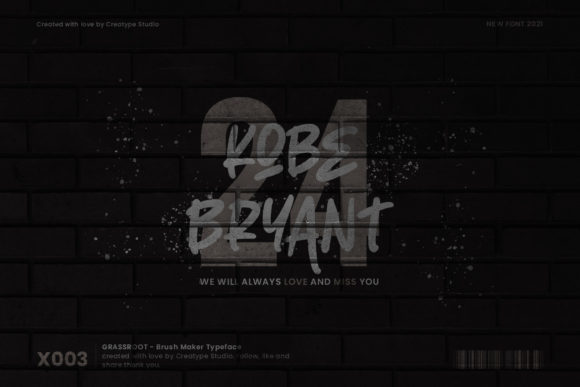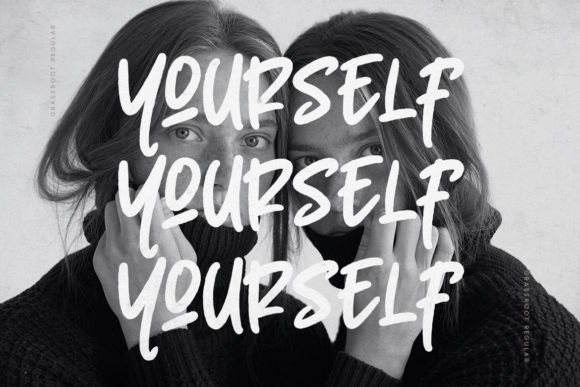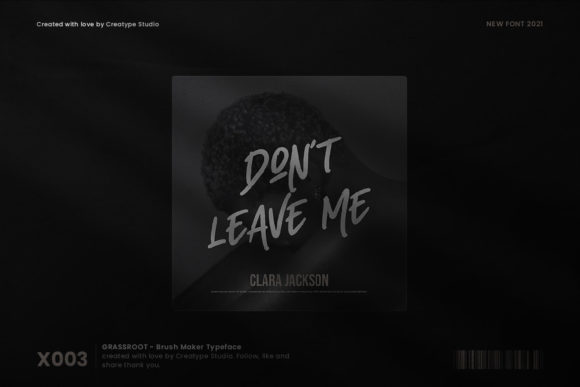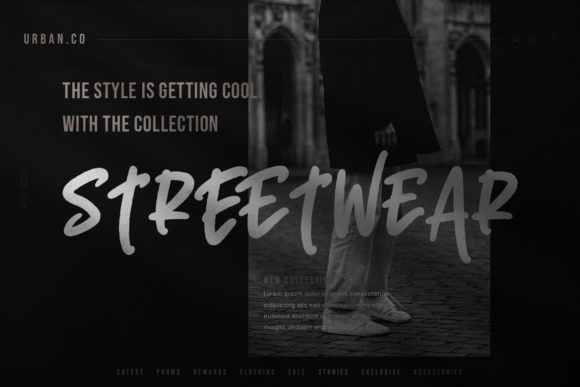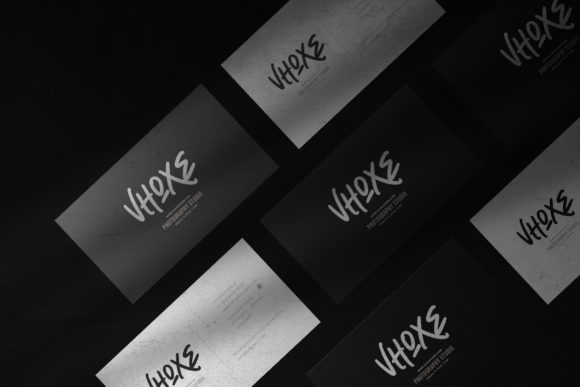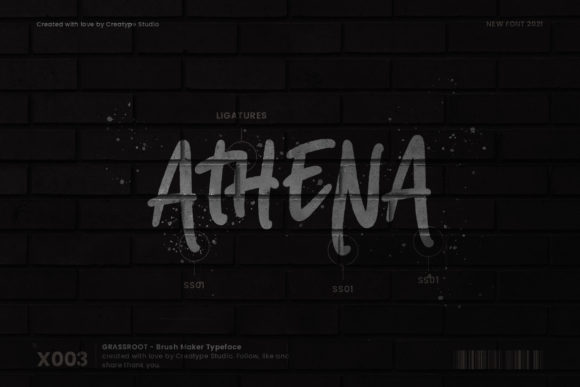
The Ultimate Design Game-Changer: Unleashing the Power of Grassroot Font
I’ll never forget the time I was working on a project for a streetwear brand, and I just couldn’t seem to find the right font to capture their edgy, urban vibe. The client was specific about wanting something that screamed “street art,” but I was coming up blank. That’s when I stumbled upon Grassroot Font, and let me tell you, it was a total game-changer! 🤩
With its graffiti-styled display and street art flair, Grassroot Font instantly resonated with the brand’s aesthetic. I was able to create designs that not only met but exceeded the client’s expectations. And the best part? The font’s PUA encoding made it incredibly easy to access all the amazing glyphs and ligatures. In this article, I’ll dive into the world of Grassroot Font, sharing my honest review, a practical guide on how to use it, and some awesome alternatives to explore.
Honest Review: The Good, the Bad, and the Quirky
What I Love About Grassroot Font ✨
- 💥 Street art vibe: Grassroot Font nails the graffiti-styled display look that’s perfect for streetwear, sportswear, and urban-inspired designs.
- ✅ PUA encoded: Easy access to all the glyphs and ligatures, making it a breeze to create unique and eye-catching designs.
- 🎨 Versatile: Suitable for a wide range of designs, from t-shirts and logos to advertisements and clothing.
- ⚠️ Legibility at small sizes: Like many display fonts, Grassroot can get a bit tricky to read at smaller sizes. Be sure to test it out before finalizing your design.
- ⚠️ Limited use cases for formal designs: Due to its bold, street-art-inspired style, Grassroot might not be the best fit for more formal or traditional designs.
The Story Behind Grassroot Font: Designer Inspiration
According to its creators, Grassroot Font was inspired by the raw energy of street art and graffiti. The designers wanted to capture the essence of urban culture and translate it into a font that would empower designers to create bold, eye-catching designs. The result is a font that’s equal parts edgy, artistic, and versatile.
Q: What is PUA encoding, and how does it benefit font users?
A: PUA (Private Use Area) encoding allows font creators to include additional glyphs and characters that aren’t part of the standard Unicode range. This means that users can access a wider range of characters, ligatures, and stylistic alternates, making it easier to create unique and creative designs.
Q: Is Grassroot Font suitable for body text or long-form content?
A: While Grassroot Font is amazing for display text and headlines, it might not be the best choice for body text or long-form content. Its bold, graffiti-inspired style can be overwhelming for extended reading.
| Font Name | Grassroot Font |
| Author | CreatypeStudio |